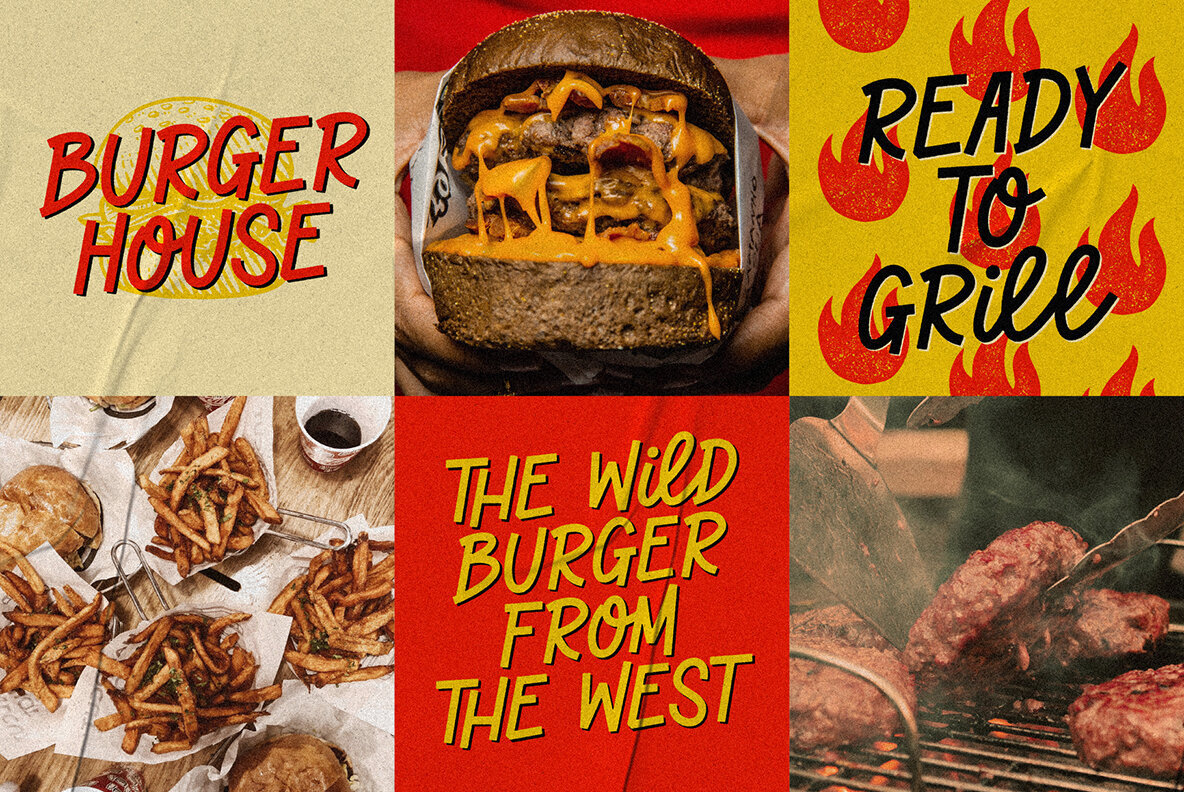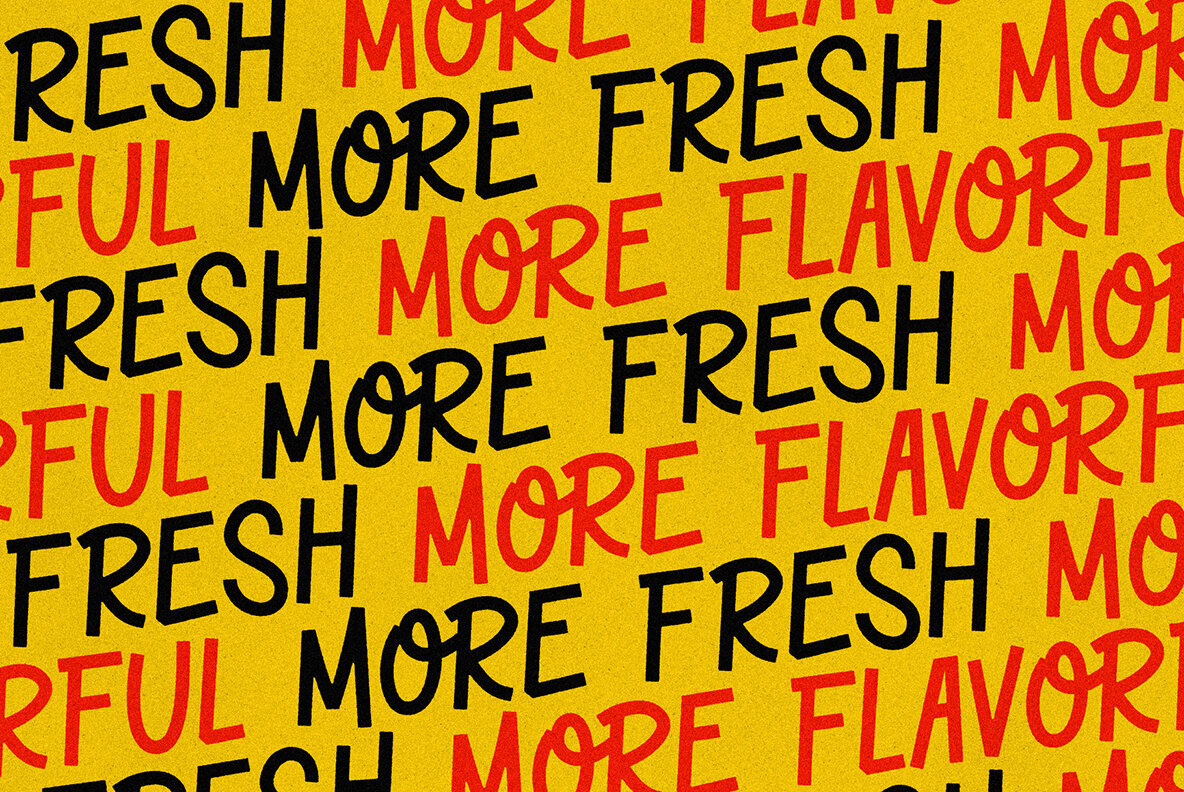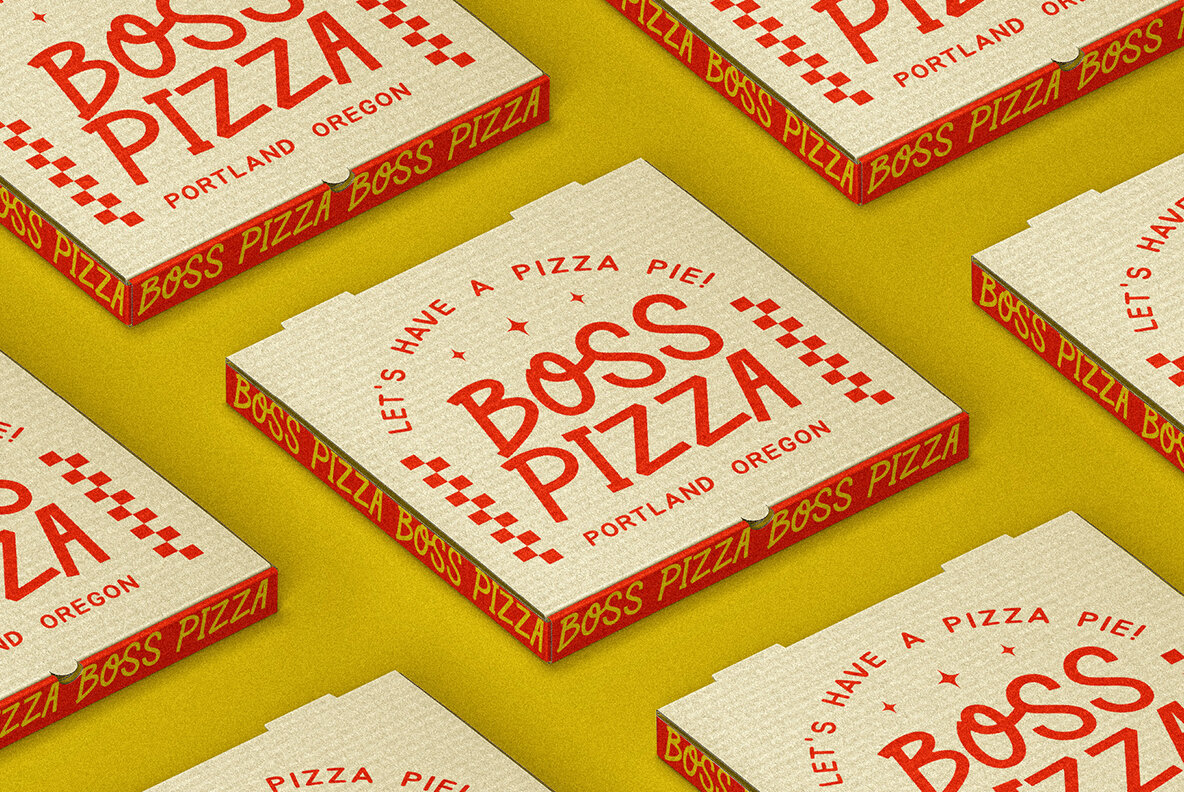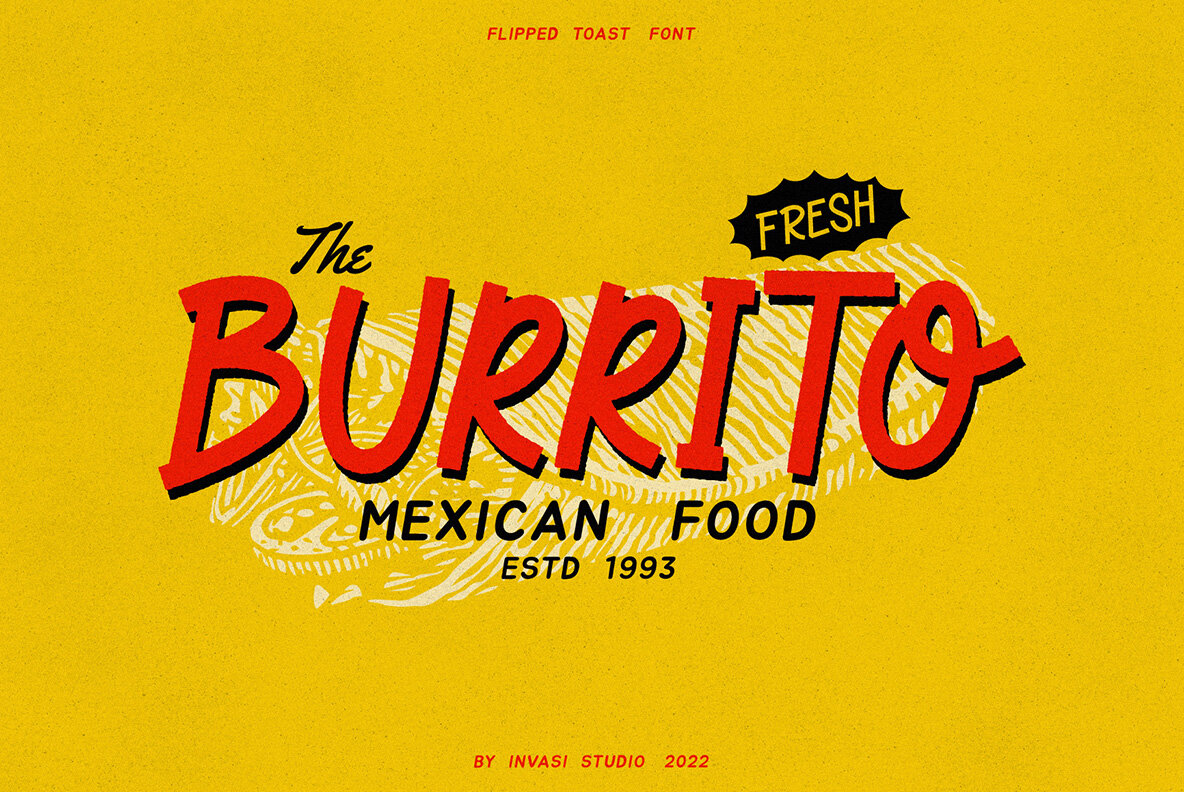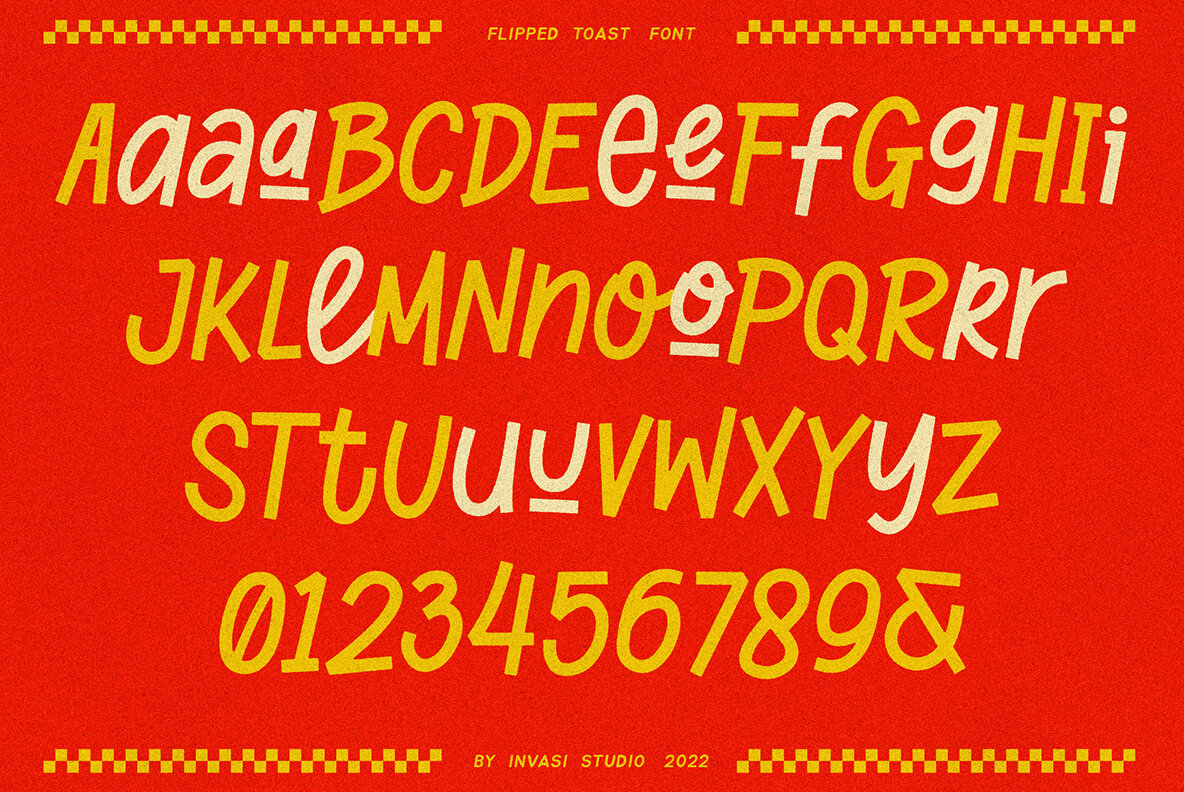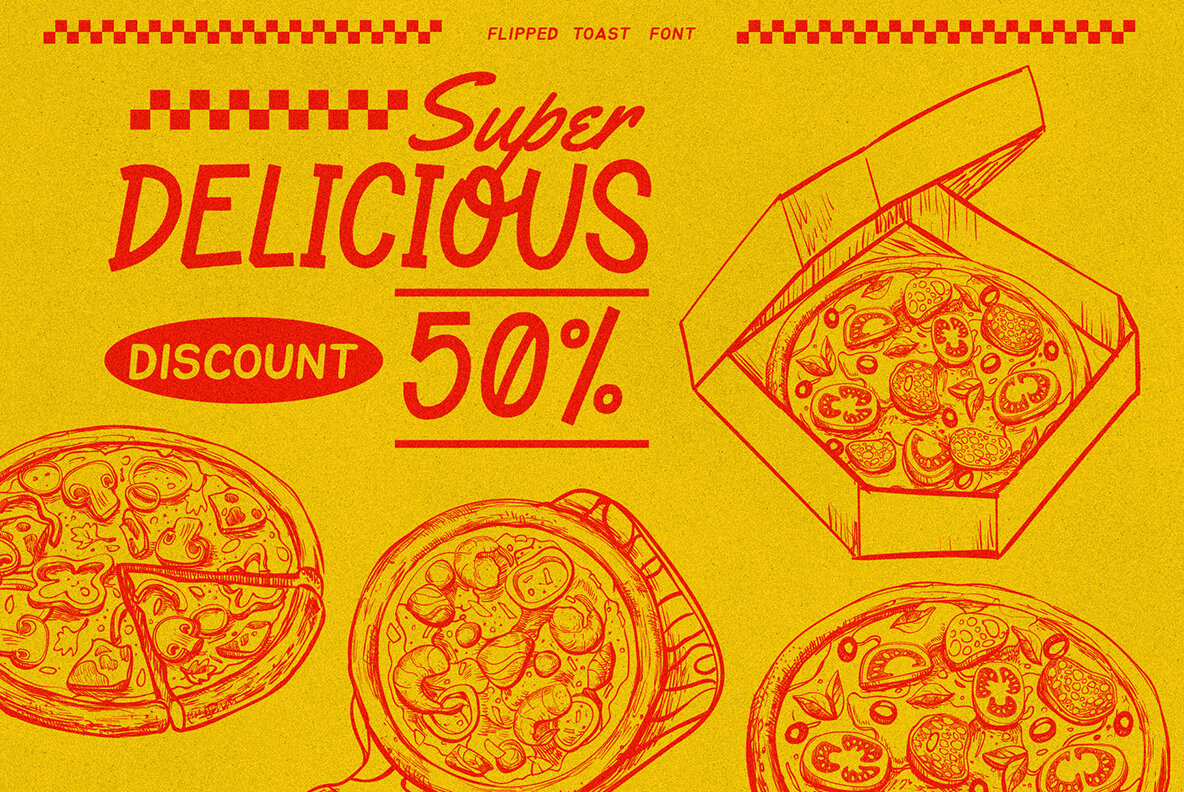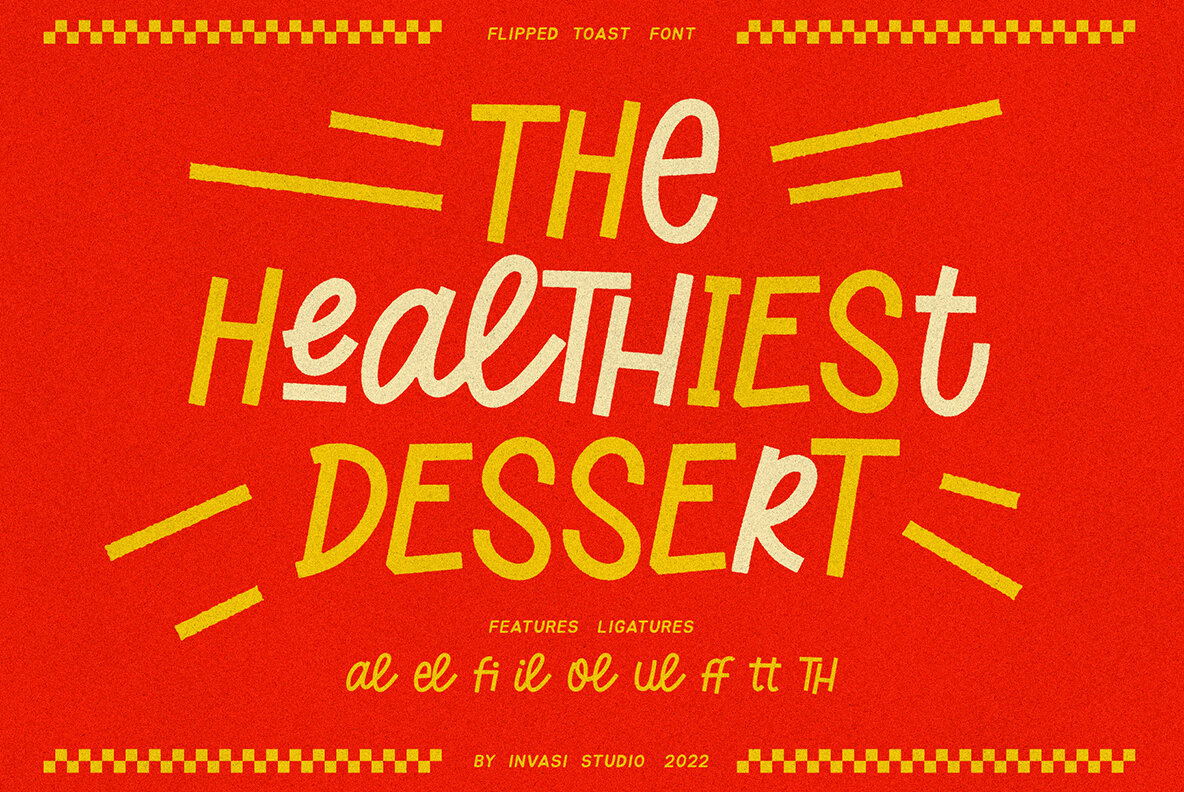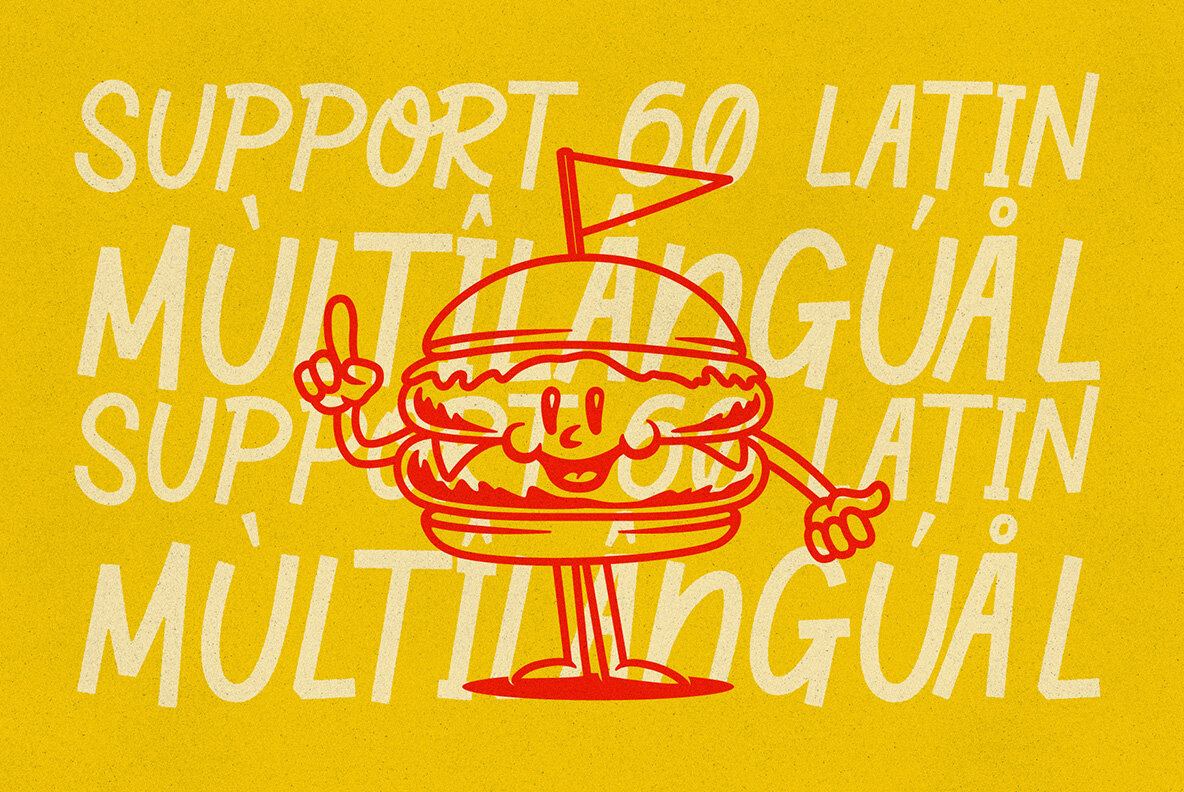
Flipped Toast 1
The Flipped Toast display font is perfect for anything you want to put out there. Whether it be a card or logo, this fun and happy looking typeface will work wonders!